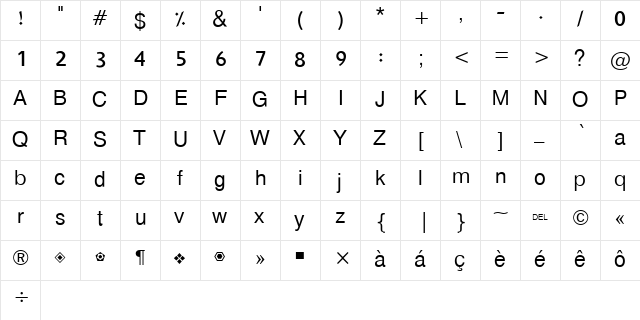
Hacen Liner Print-out Regular
| Foundry | Muhammad Hacen |
| Designer | Muhammad Hacen |
Design Context for Hacen Liner Print-out Typeface
Hacen Liner Print-out is a composed and adaptable typeface that performs quietly and consistently across a wide range of design contexts.
Pro Tip: Use Hacen Liner Print-out in both headline and body roles to test its range before committing to a single application.